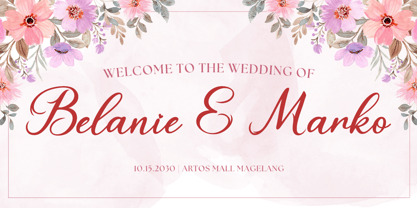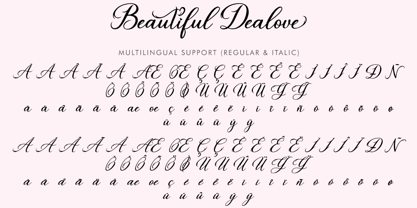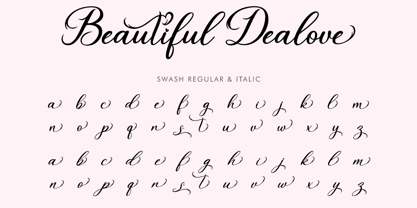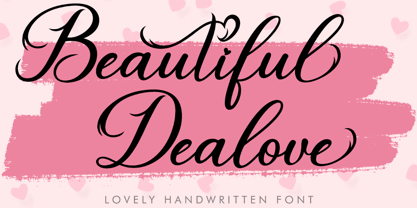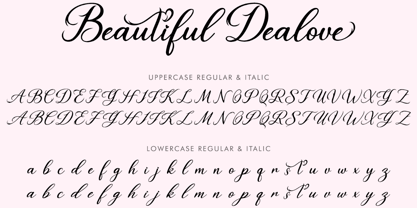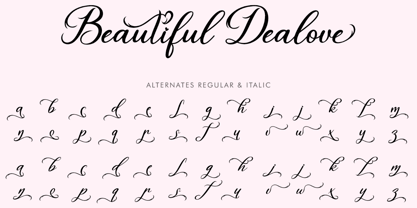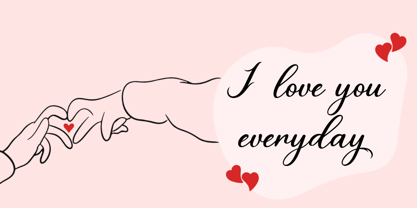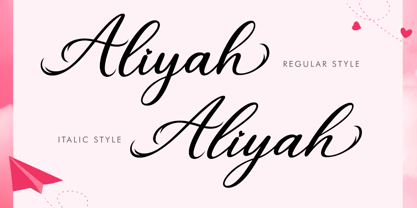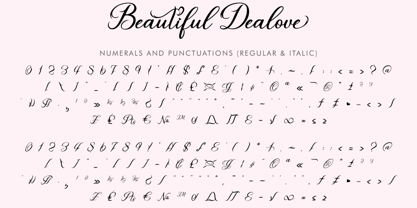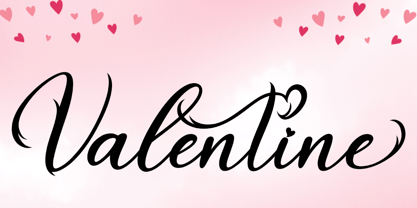
Beautiful Dealove Italic
by Yoga Letter
The Beautiful Dealove Italic Font Family was designed by Isroni Yoga Prasetya and published by Yoga Letter. Beautiful Dealove Italic contains 2 styles and family package options. More about this family
"Beautiful Dealove" is a beautiful and unique handwritten font. It features regular and italic styles, supports uppercase and lowercase letters, alternates, swashes, numerals, punctuations, and multilingual support. It's perfect for Valentine's Day, Christmas, Easter, spring, summer, Mother's Day, Father's Day, print, stickers, banners, posters, branding, and more.
Designers: Isroni Yoga Prasetya
Foundry: Yoga Letter